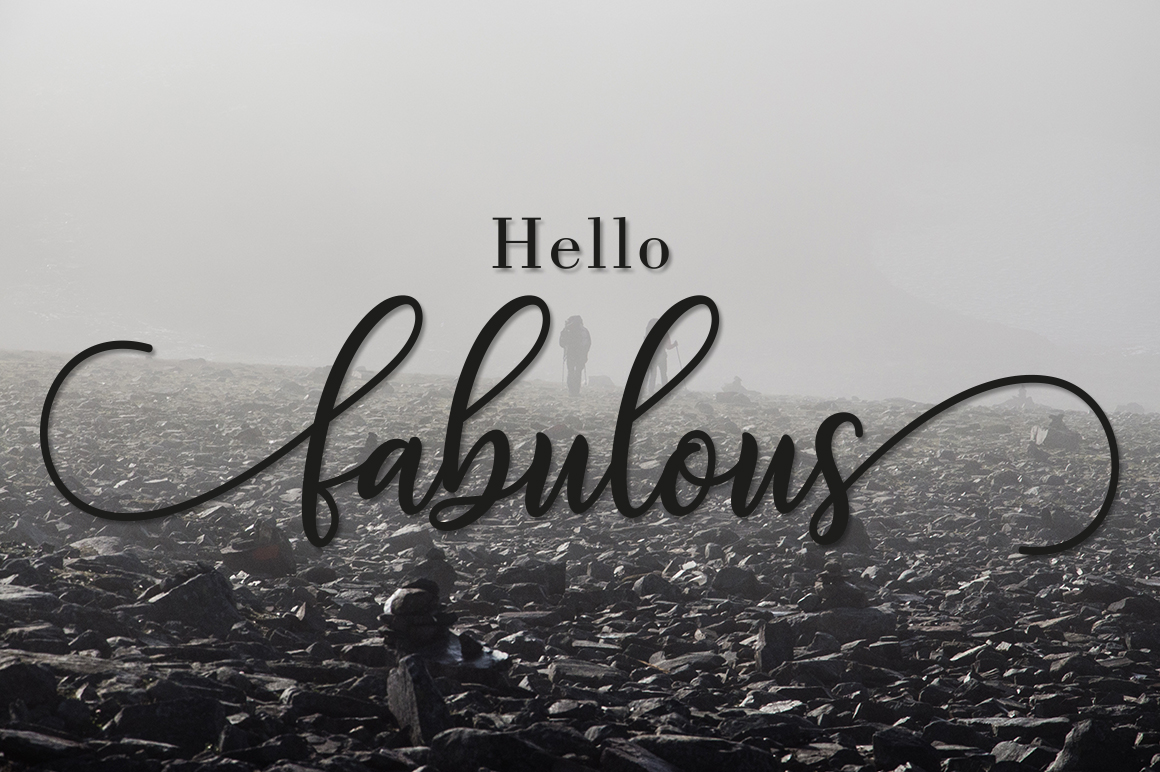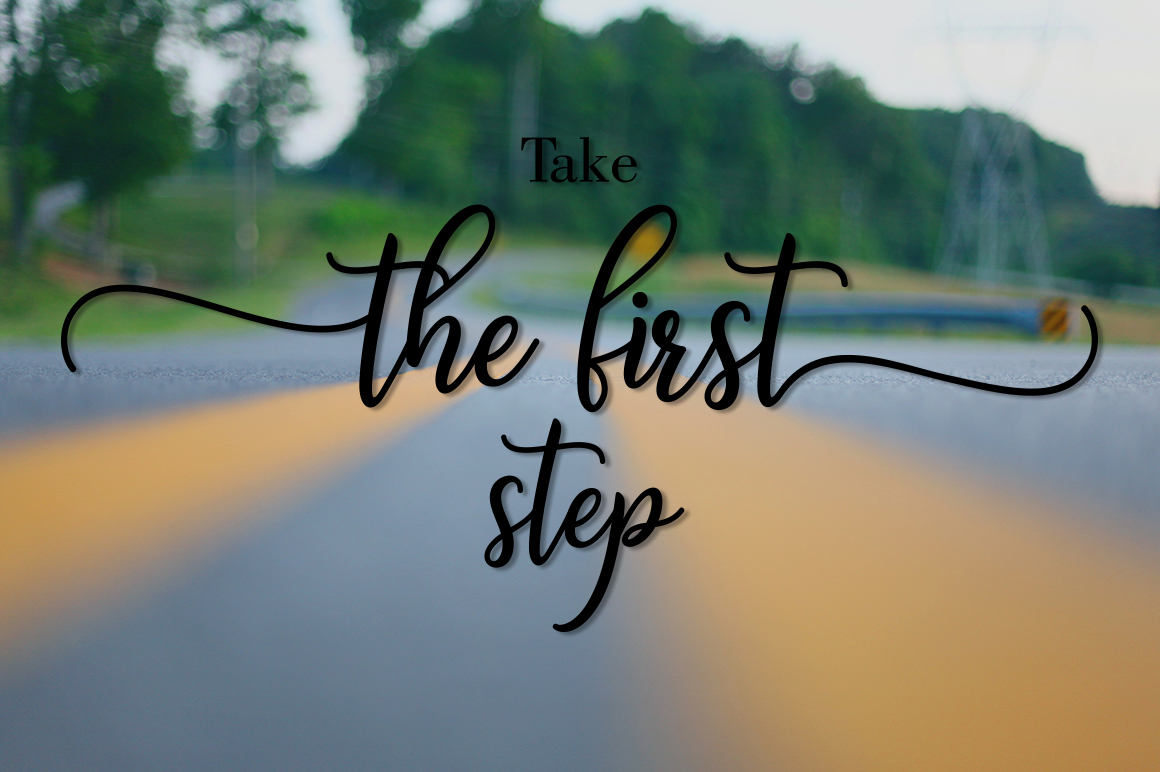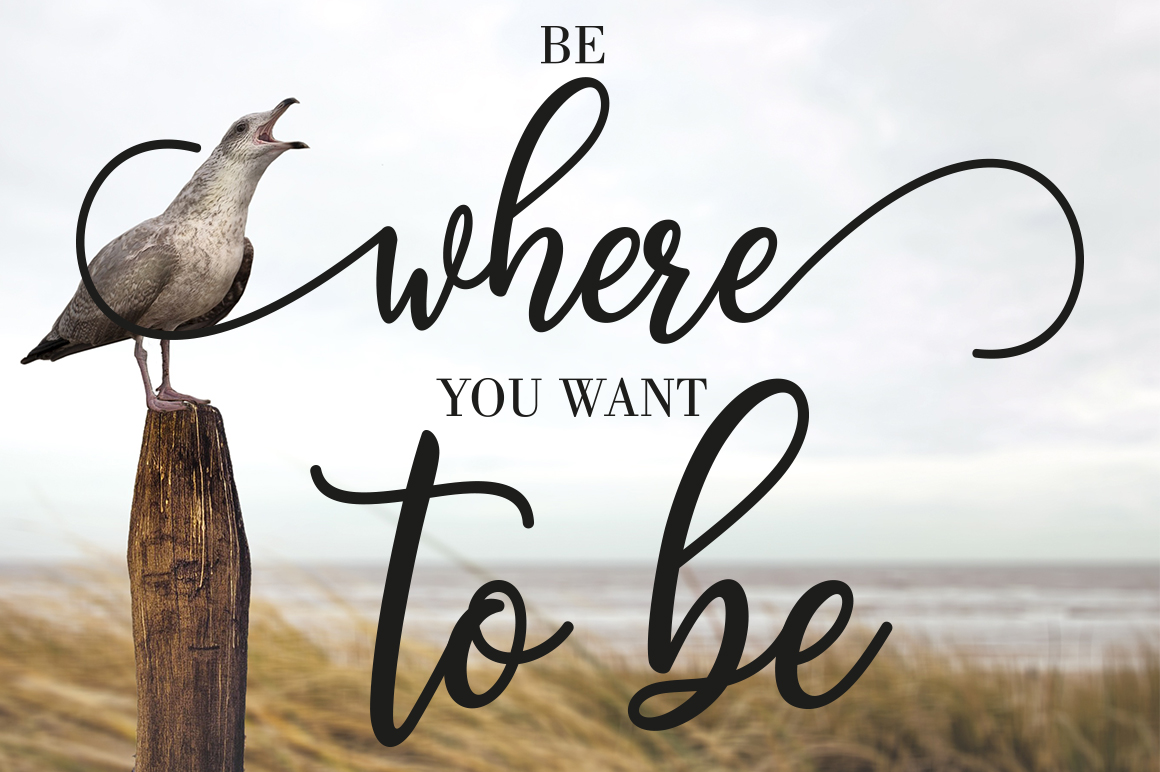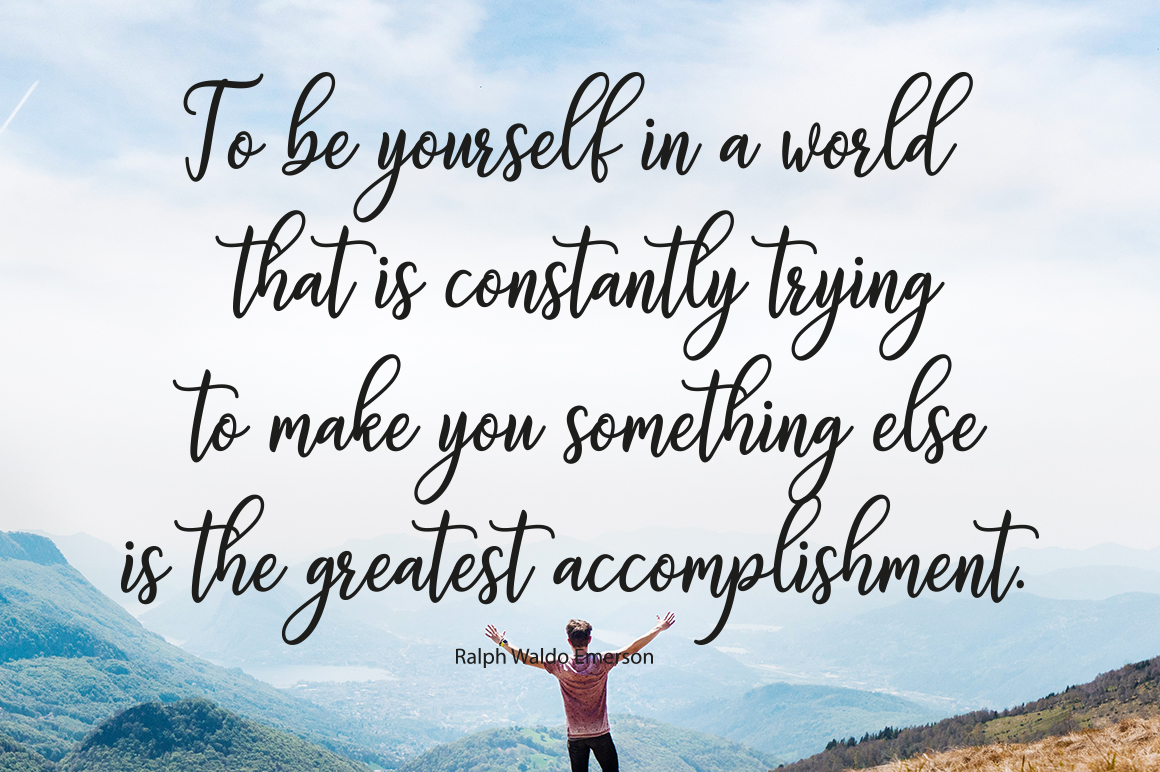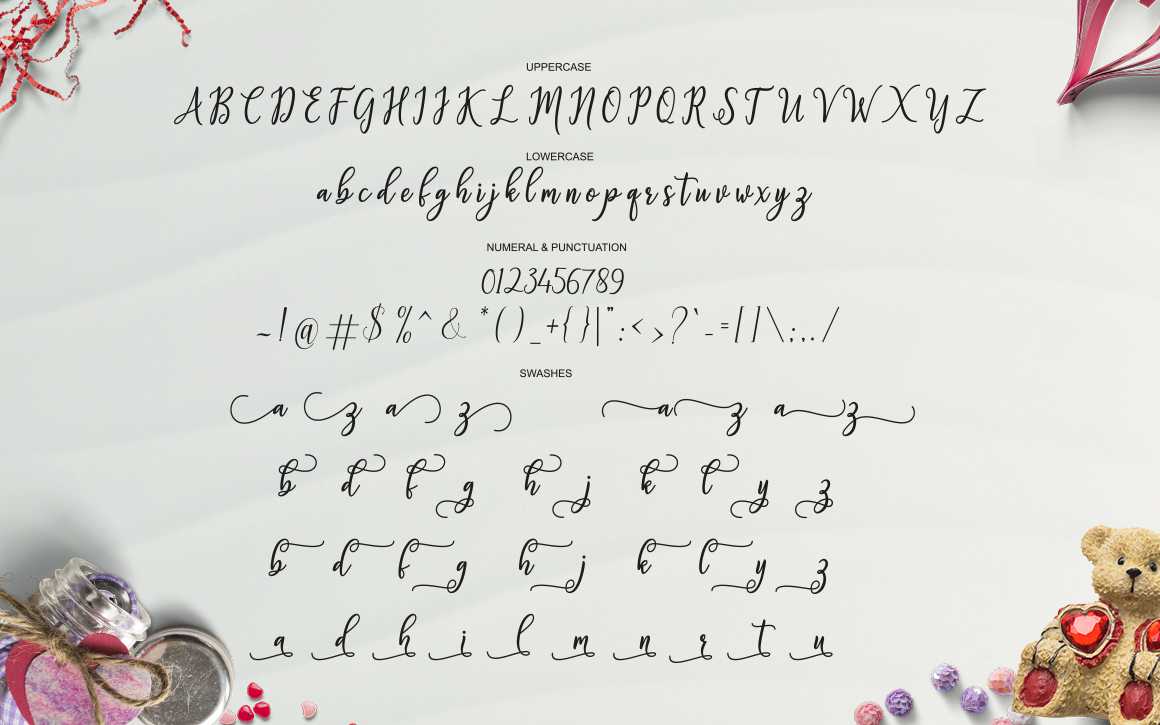
Fabulous Script Font: Elevate Your Designs with Elegance and Sophistication
In the world of typography, script fonts hold a special place for their elegance, sophistication, and ability to add a personal touch to any design. Among the myriad of script fonts available, the Fabulous Script stands out for its versatility, stunning appearance, and modern flair. This article will delve into the characteristics of the Fabulous Script font, its applications, and why it has become a go-to choice for designers and crafters alike.
The Essence of Fabulous Script Font
The Fabulous Script is just that; variable, stunning, and modern. This script font is perfect for displaying the most precious of your messages, whether it’s in wedding invitations, branding materials, or personal greeting cards. Its unique blend of traditional script elements with a contemporary twist makes it an excellent choice for those looking to add a touch of sophistication and elegance to their designs.
Key Features of Fabulous Script Font
- Variability: The Fabulous Script offers a range of variations, allowing designers to experiment with different styles and tones. This variability ensures that your design stands out and captures the essence of your message.
- Stunning Appearance: With its fluid lines and graceful curves, the Fabulous Script is visually striking. It brings a level of sophistication and elegance to any design, making it perfect for high-end branding, luxury packaging, and more.
- Modern Flair: While the Fabulous Script maintains traditional script elements, it also incorporates a modern twist. This blend of old and new makes it versatile and suitable for a wide range of design applications.
Applications of Fabulous Script Font
The Fabulous Script font is incredibly versatile, making it suitable for various design projects. Here are some of the most popular applications:
- Wedding and Event Stationery: The elegant and sophisticated nature of the Fabulous Script makes it a perfect choice for wedding invitations, save-the-date cards, and other event stationery.
- Branding and Logo Design: For businesses looking to convey luxury, elegance, and sophistication, the Fabulous Script can be a great addition to their branding and logo design.
- Personal Projects: Whether you’re creating handmade cards, scrapbooking pages, or personalized gifts, the Fabulous Script can add a personal and unique touch to your projects.
Why Choose Fabulous Script Font?
With so many script fonts available, why choose the Fabulous Script? Here are a few compelling reasons:
- Ease of Use: The Fabulous Script is easy to read and works well in both digital and print formats.
- Customization: Its variability allows for a high level of customization, ensuring your design is unique.
- Timeless Appeal: The Fabulous Script combines traditional elements with a modern twist, giving it a timeless appeal that won’t go out of style.